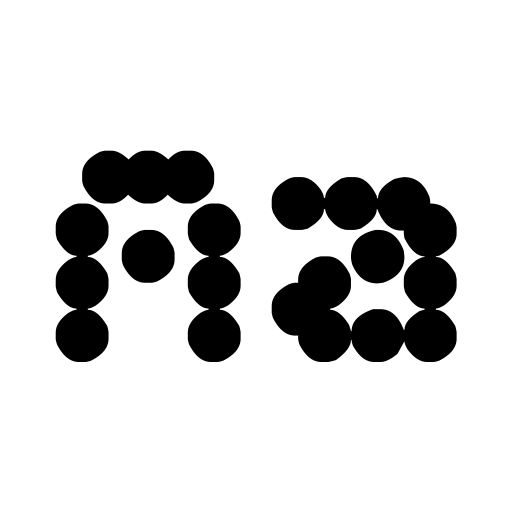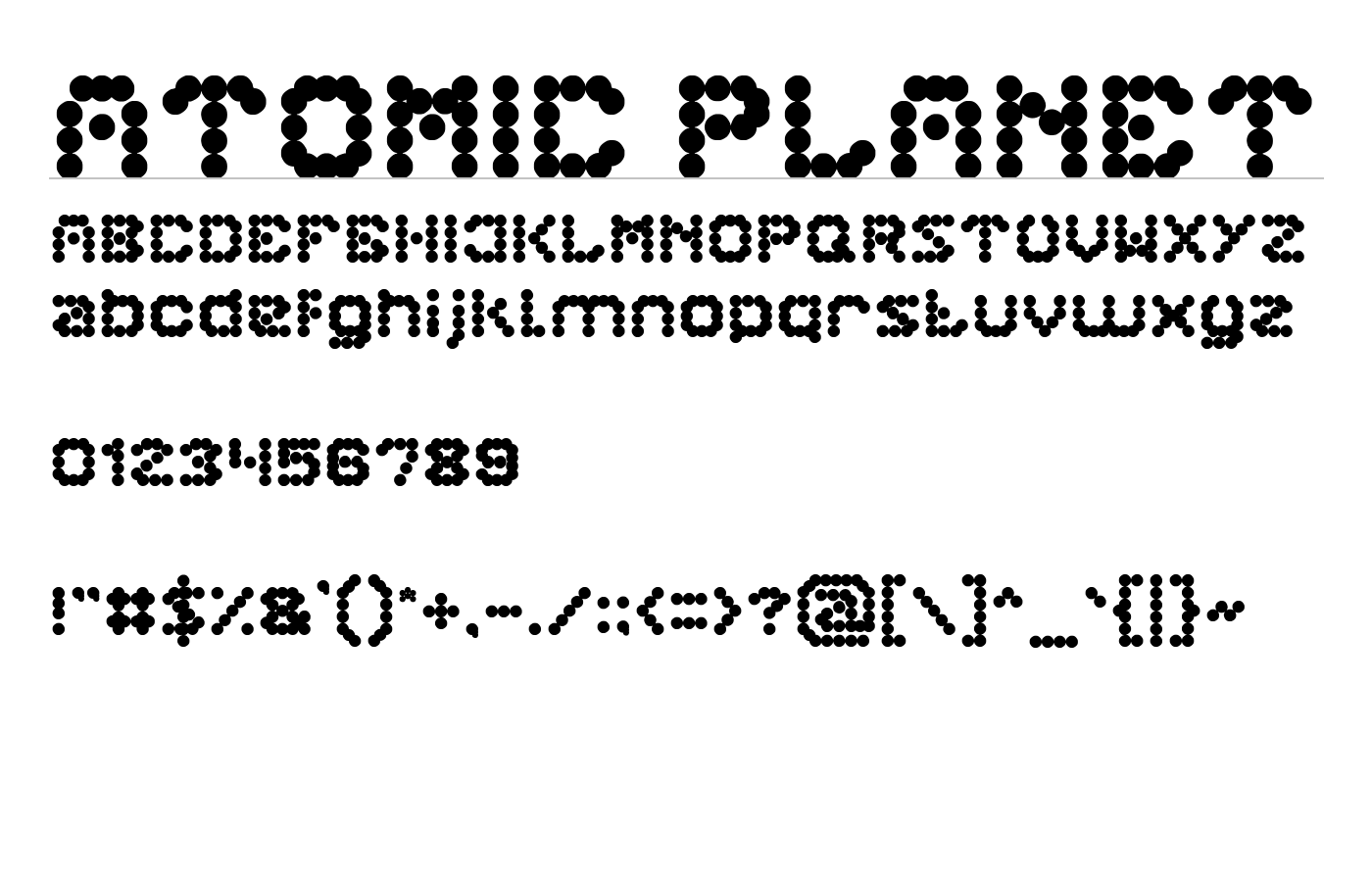
Atomic Planet is a unique, futuristic sans serif font composed entirely of small, circular dots that give it a techy, digital feel. Its bold weight and geometric structure make it perfect for creative headlines, logos, or branding that seeks to convey innovation and modernity. This playful yet structured design works best in strong visual displays such as posters, sci-fi themed projects, and tech-inspired graphics.
ATOMIC PLANET Font
About ATOMIC PLANET Font